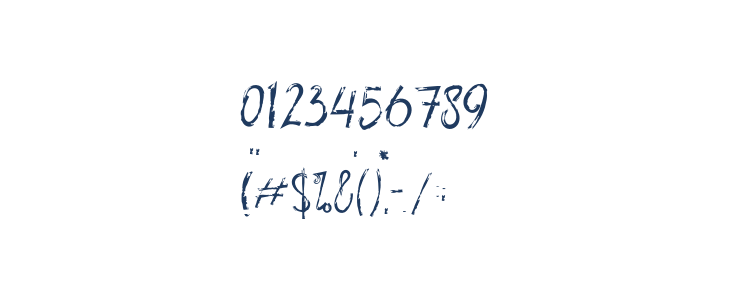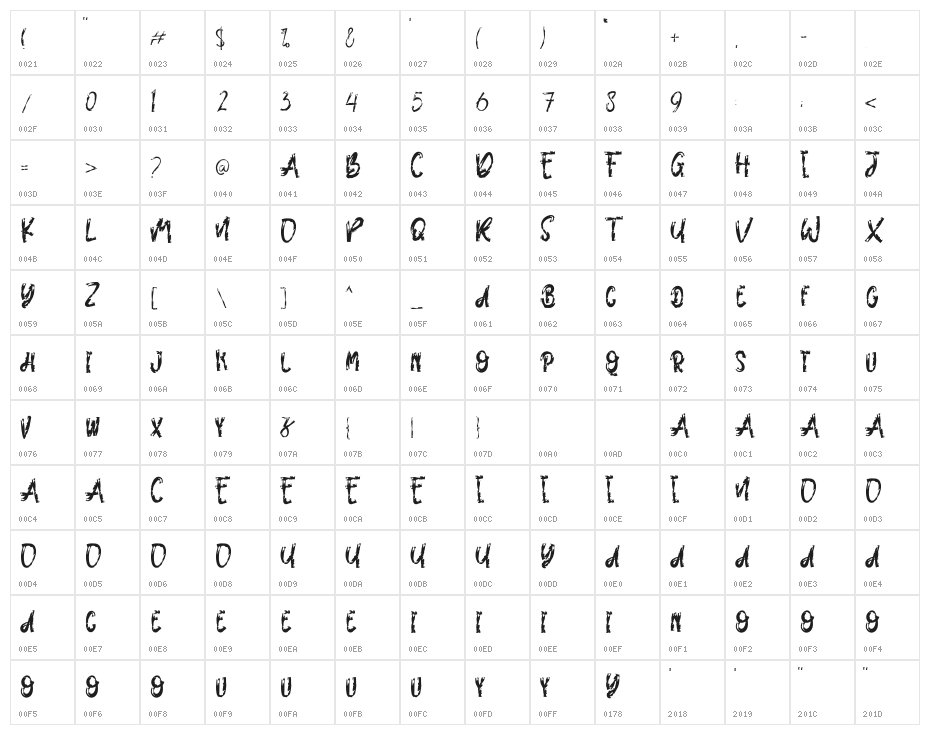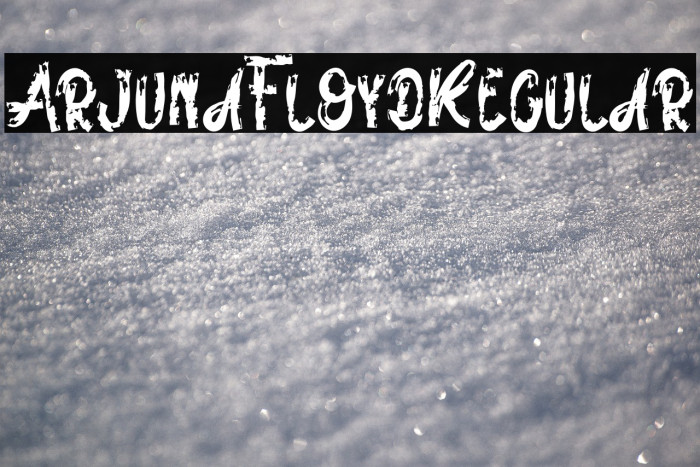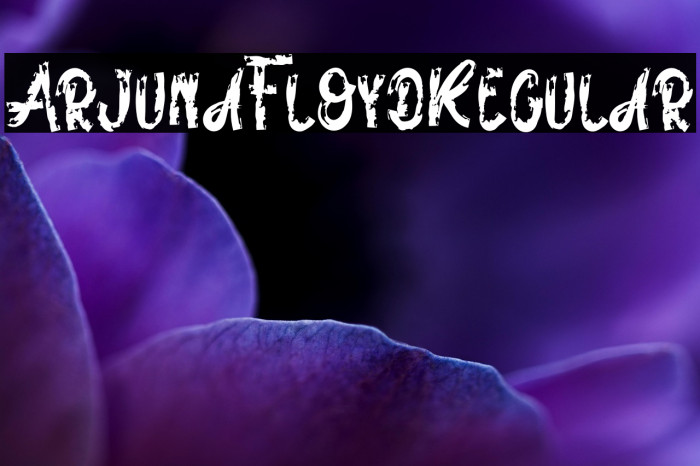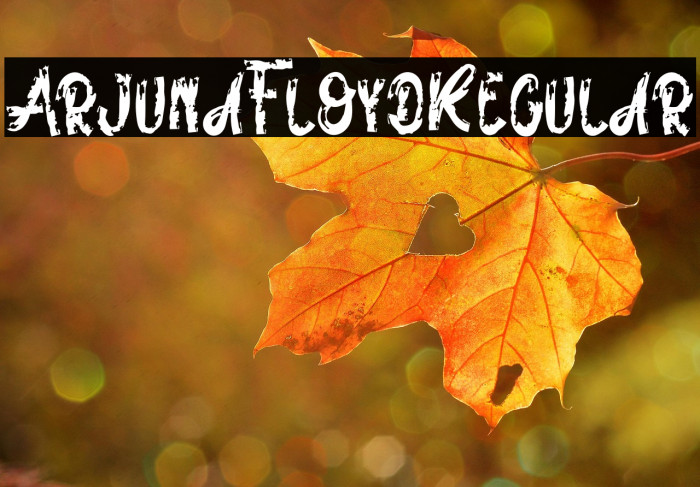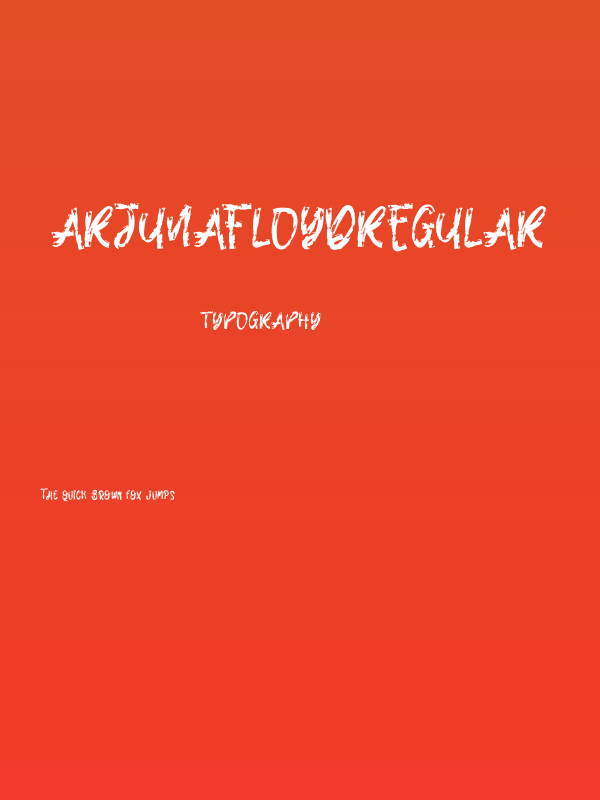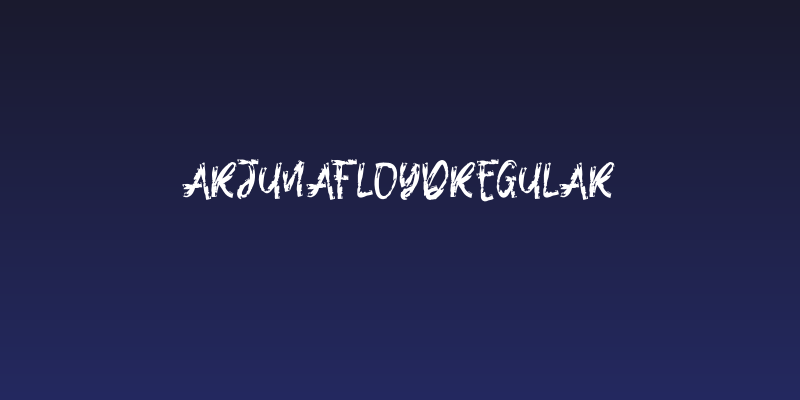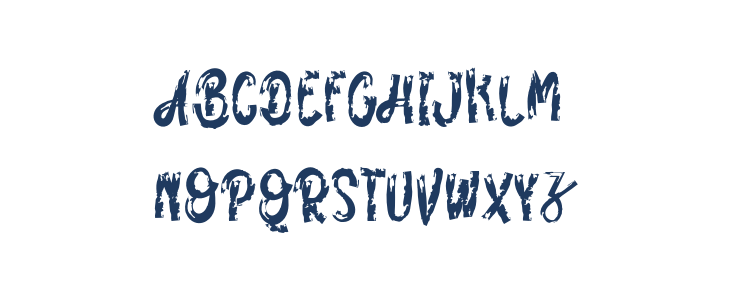
ArjunaFloydRegular Font
ArjunaFloydRegular Description
This font exhibits a bold and expressive style, characterized by its brush-like strokes and distressed texture. The letters have an energetic and dynamic appearance, with irregular edges and a hand-painted feel. The uppercase and lowercase letters maintain a consistent style, while the numbers and special characters complement the overall design. This font's unique texture and bold presence make it stand out, ideal for projects requiring a strong visual impact.